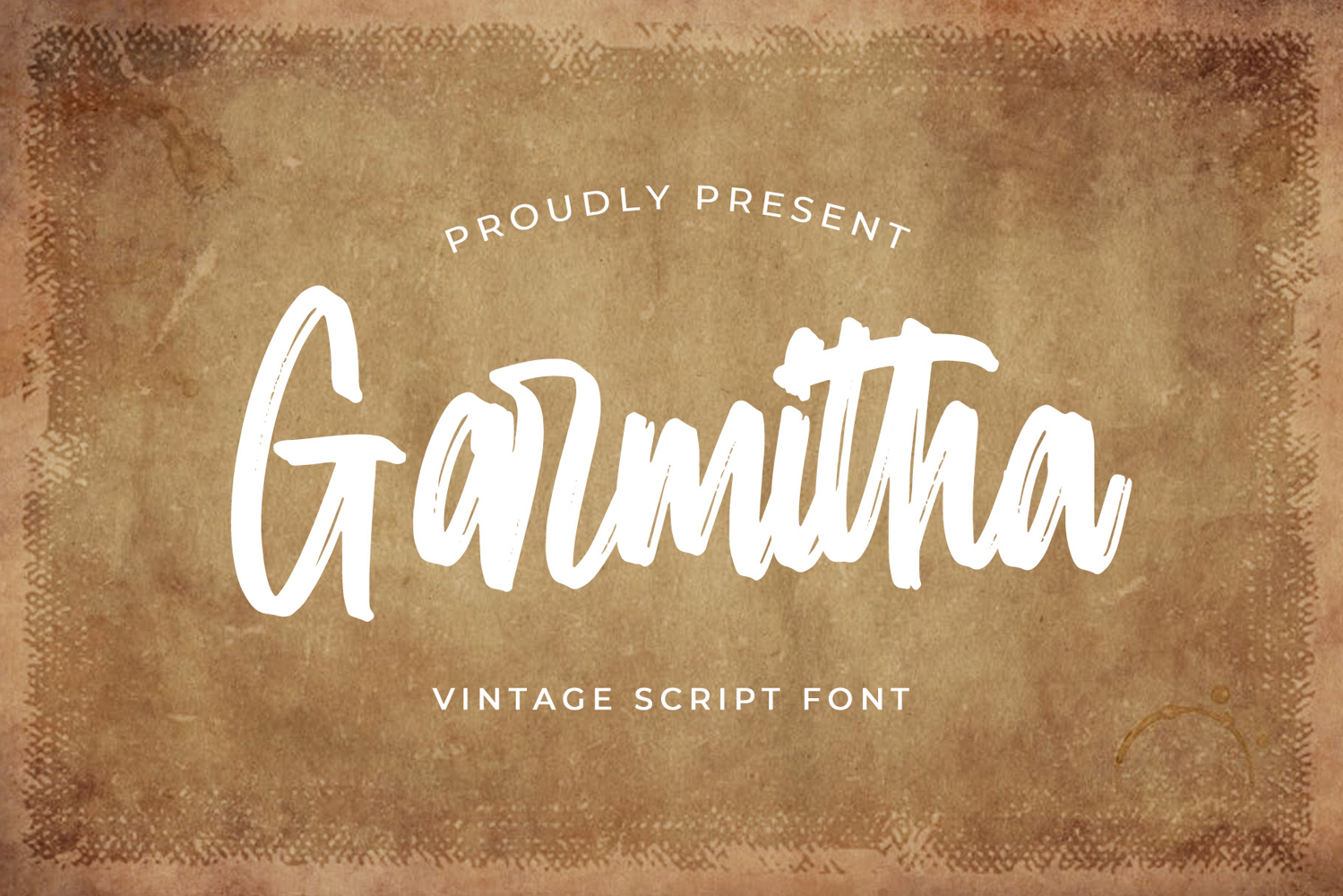
Garmitha
Garmitha font with new style, this font will perfect for many different project ex: quotes, logo, blog header, poster, banding, fashion, apparel, letter, invitation, stationery, etc...
Garmitha